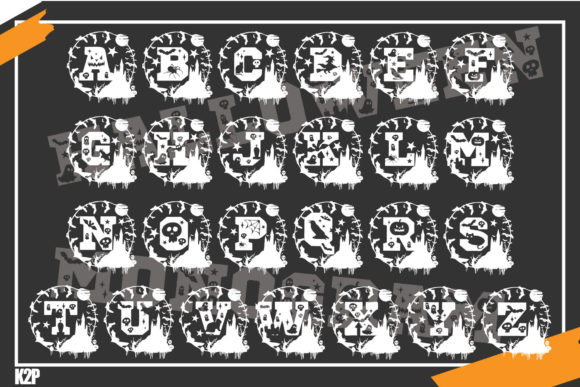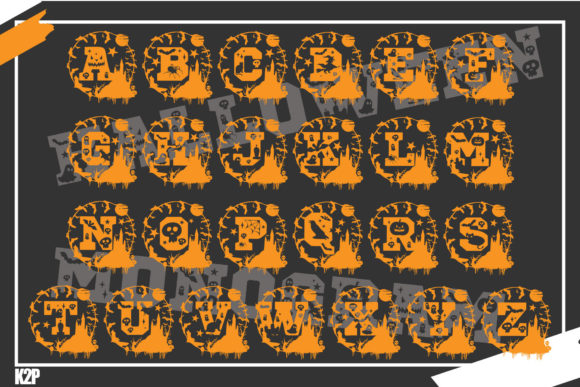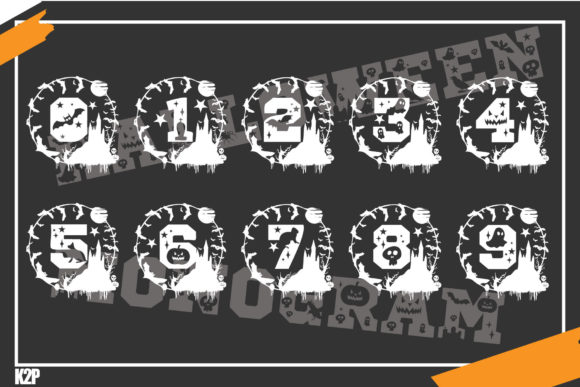
Unleash the Spooky Spirit with Halloween Monogram Font
As the spookiest time of the year approaches, designers and crafters are on the lookout for the perfect typography to add a touch of eeriness to their Halloween-themed projects. Look no further than the Halloween Monogram Font, a thick-lettered and spooky decorative font that’s sure to cast a spell on your audience.
What is Halloween Monogram Font?
Halloween Monogram Font is a unique and eye-catching typeface designed specifically for the Halloween season. Its thick, bold letters are perfect for creating eye-catching titles, headings, and decorations that will add a spooky touch to any project. Whether you’re working on a DIY craft, a Halloween party invitation, or a seasonal marketing campaign, this font is sure to make your design stand out.
Key Features of Halloween Monogram Font
- Thick-Lettered Design: The Halloween Monogram Font features thick, bold letters that are perfect for creating eye-catching titles and headings.
- Spooky Decorative Style: The font’s spooky decorative style is sure to add a touch of eeriness to any project.
- Perfect for Halloween Projects: Whether you’re working on a Halloween party invitation, a seasonal marketing campaign, or a DIY craft, this font is sure to make your design stand out.
- Endless Creative Possibilities: The only limit to using Halloween Monogram Font is your imagination. Use it to create custom signs, decorations, and more.
Uses for Halloween Monogram Font
The Halloween Monogram Font is versatile and can be used for a wide range of projects, including:
- Halloween Party Invitations: Create spooky and eye-catching invitations that will set the tone for your Halloween party.
- Seasonal Marketing Campaigns: Use the font to create eye-catching ads, social media posts, and other marketing materials that will grab your audience’s attention.
- DIY Crafts: Add a touch of spookiness to your DIY crafts, such as pumpkin decorations, Halloween-themed jewelry, and more.
- Custom Signs and Decorations: Use the font to create custom signs, banners, and decorations that will add a spooky touch to your Halloween celebrations.
Tips for Using Halloween Monogram Font
To get the most out of the Halloween Monogram Font, here are a few tips to keep in mind:
- Experiment with Different Colors: Try out different colors and color combinations to find the perfect look for your project.
- Mix and Match with Other Fonts: Combine the Halloween Monogram Font with other fonts to create a unique and eye-catching look.
- Don’t Be Afraid to Get Creative: The only limit to using Halloween Monogram Font is your imagination. Don’t be afraid to try out new and creative ideas.
If you’re looking for a font that will add a touch of spookiness to your Halloween-themed projects, look no further than the Halloween Monogram Font. With its thick-lettered design and spooky decorative style, this font is sure to make your design stand out. So why wait? Download the Halloween Monogram Font today and unleash your creativity!